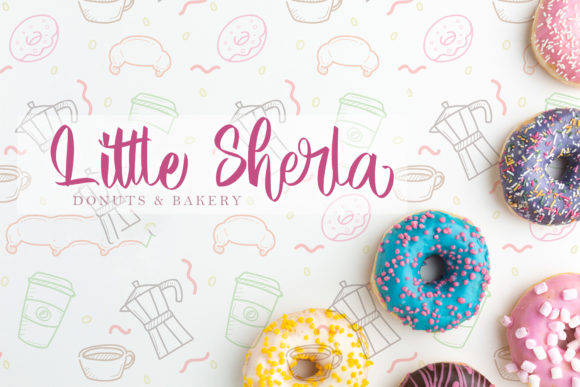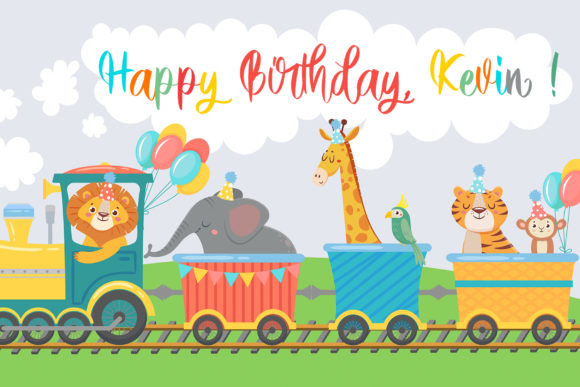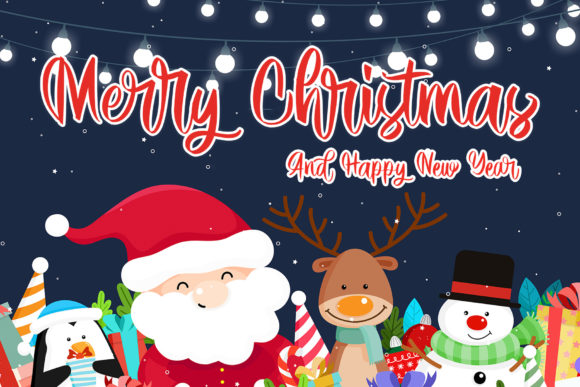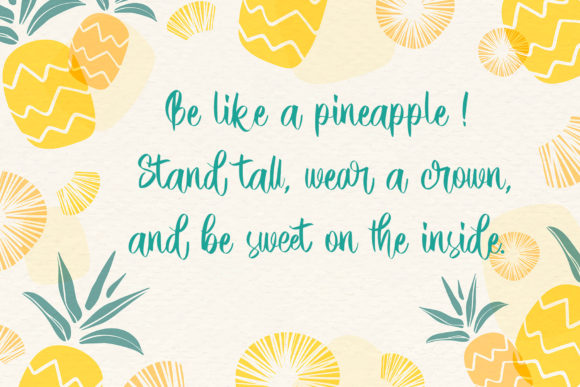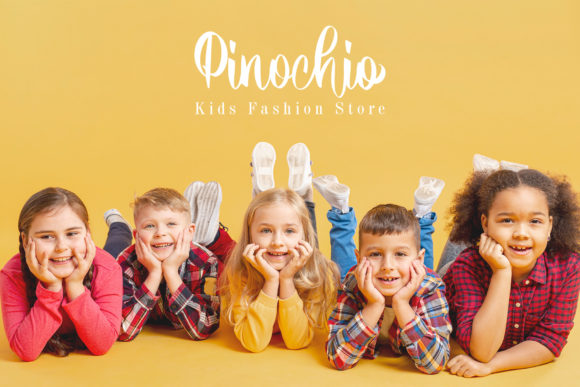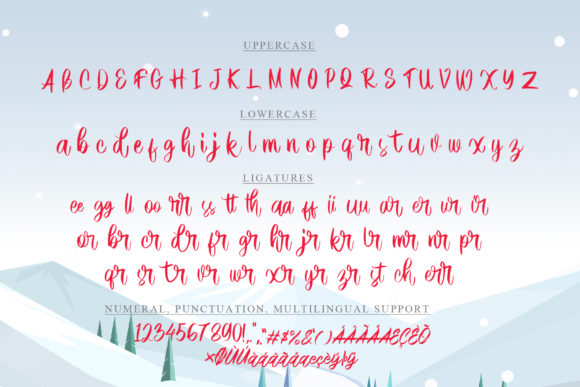
Introducing Christmas Journey Font: A Beautiful Handwritten Font for Holiday Crafts
Are you looking for a font that captures the essence of the holiday season? Do you want to add a touch of romance and elegance to your crafting projects? Look no further than Christmas Journey Font, a stunning handwritten font that’s perfect for holiday-themed greeting cards, invitations, and more.
What Makes Christmas Journey Font So Special?
Christmas Journey Font is a beautiful and natural handwritten font that’s designed to evoke the feeling of a winter wonderland. Its elegant and flowing script is perfect for adding a touch of sophistication to any crafting project. Whether you’re making holiday cards, gift tags, or decorations, this font is sure to impress.
One of the best things about Christmas Journey Font is its versatility. It’s ideal for a wide range of crafting projects, from holiday greeting cards and invitations to scrapbooking and DIY decorations. The font’s natural and handwritten style makes it perfect for creating unique and personalized gifts for friends and family.
PUA Encoding for Easy Access to Glyphs and Swashes
Christmas Journey Font is PUA (Private Use Area) encoded, which means that you can access all of the glyphs and swashes with ease. This makes it simple to customize your projects and add your own personal touch. With PUA encoding, you can easily access alternative characters, ligatures, and swashes to create unique and eye-catching designs.
Why Designers and Crafters Love Christmas Journey Font
So, why do designers and crafters love Christmas Journey Font? Here are just a few reasons:
- Unique and eye-catching designs: With Christmas Journey Font, you can create unique and eye-catching designs that will stand out from the crowd. The font’s elegant and flowing script is perfect for creating stunning holiday cards and decorations.
- Easy to use: Christmas Journey Font is easy to install and use, even for those who are new to font editing software. The PUA encoding makes it simple to access all of the glyphs and swashes.
- Versatile: This font is perfect for a wide range of crafting projects, from holiday cards and invitations to scrapbooking and DIY decorations.
- Romantic and elegant: Christmas Journey Font has a romantic and elegant feel that’s perfect for the holiday season. It’s ideal for creating beautiful and sophisticated designs that will impress friends and family.
Tips for Using Christmas Journey Font
Here are a few tips for using Christmas Journey Font in your crafting projects:
- Experiment with different colors: Christmas Journey Font looks great in a variety of colors, from traditional holiday colors like red and green to more modern shades like metallic silver and gold.
- Pair with other fonts: Try pairing Christmas Journey Font with other fonts to create unique and eye-catching designs. A bold and modern font can provide a nice contrast to the elegant script of Christmas Journey Font.
Christmas Journey Font is a beautiful and natural handwritten font that’s perfect for holiday-themed crafting projects. With its elegant and flowing script, PUA encoding, and versatility, it’s a must-have for designers and crafters. Whether you’re making holiday cards, gift tags, or decorations, Christmas Journey Font is sure to add a touch of romance and elegance to your designs.